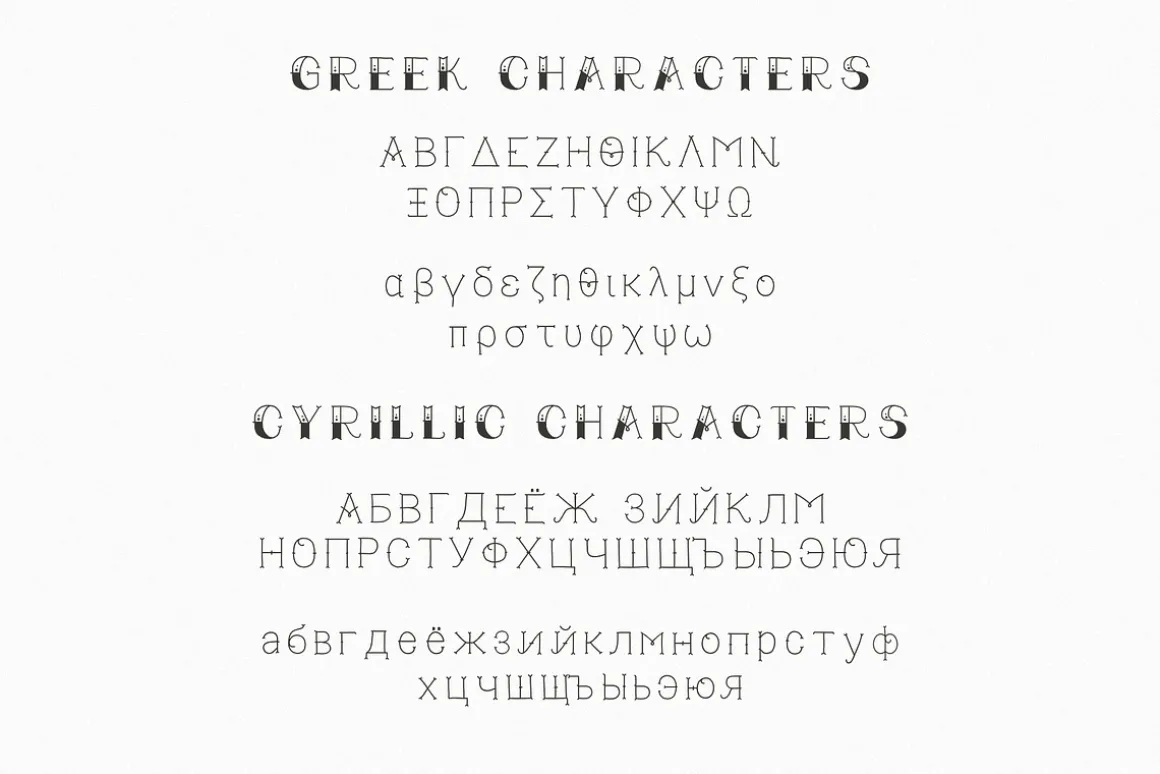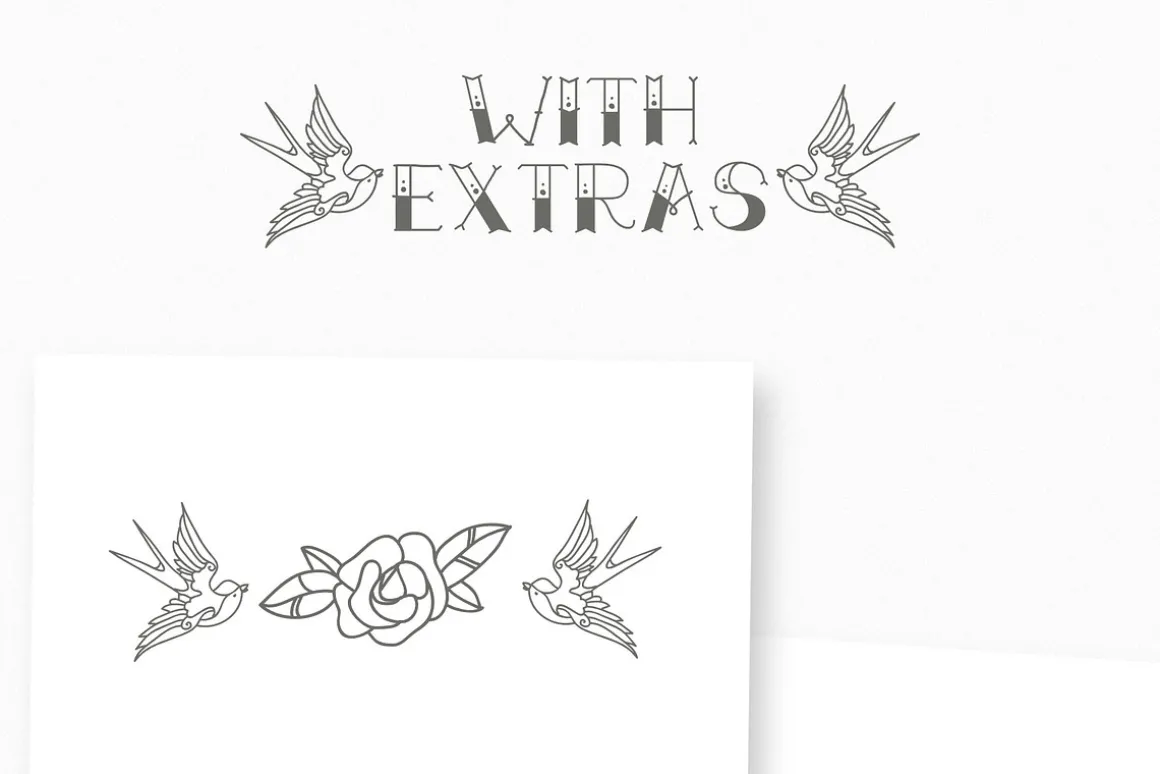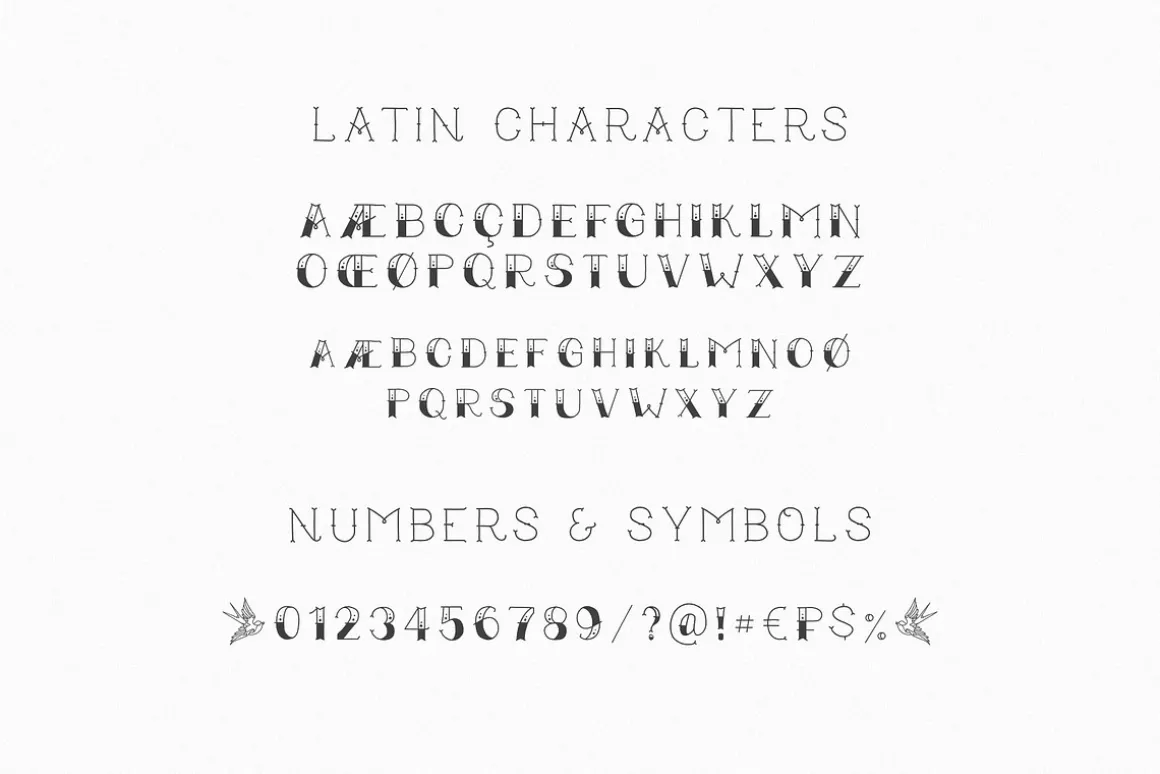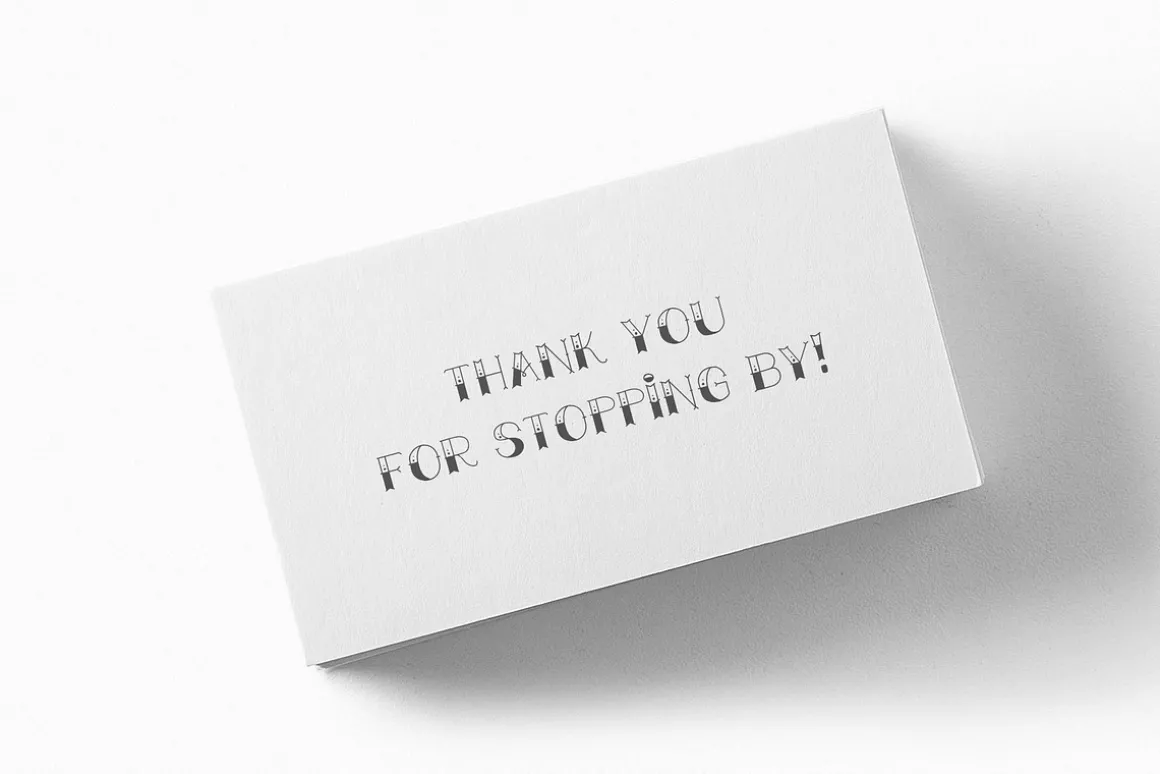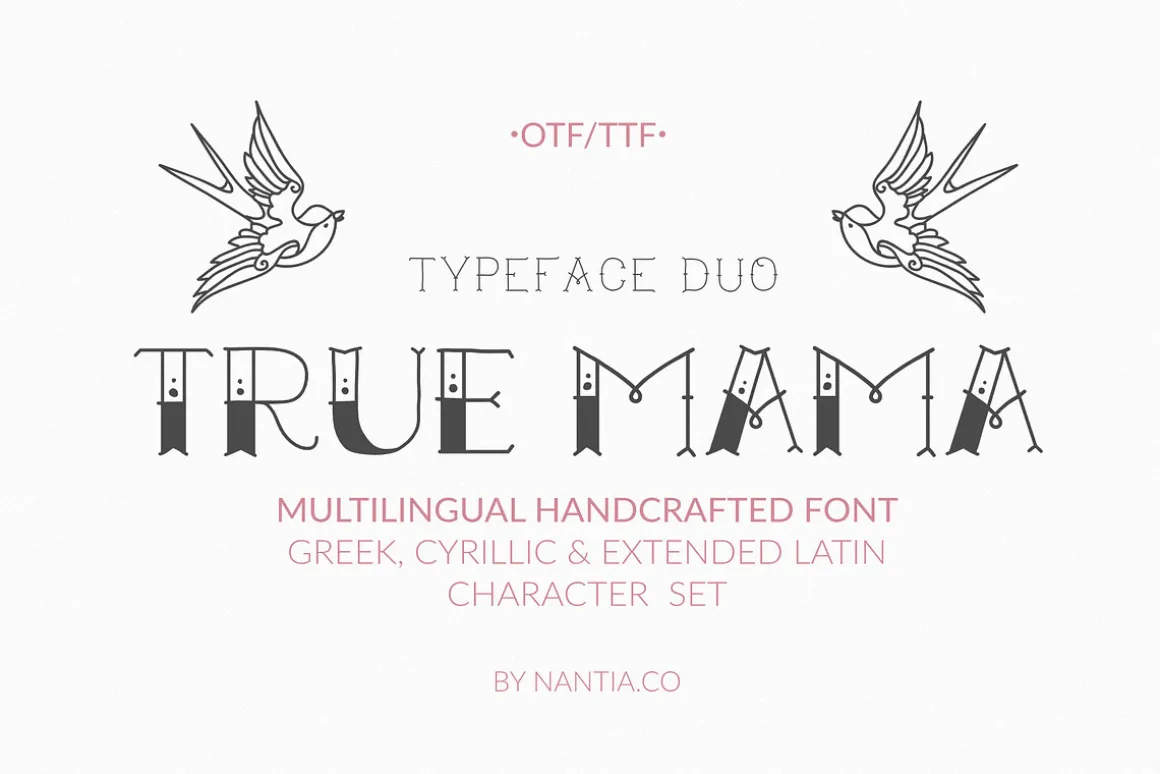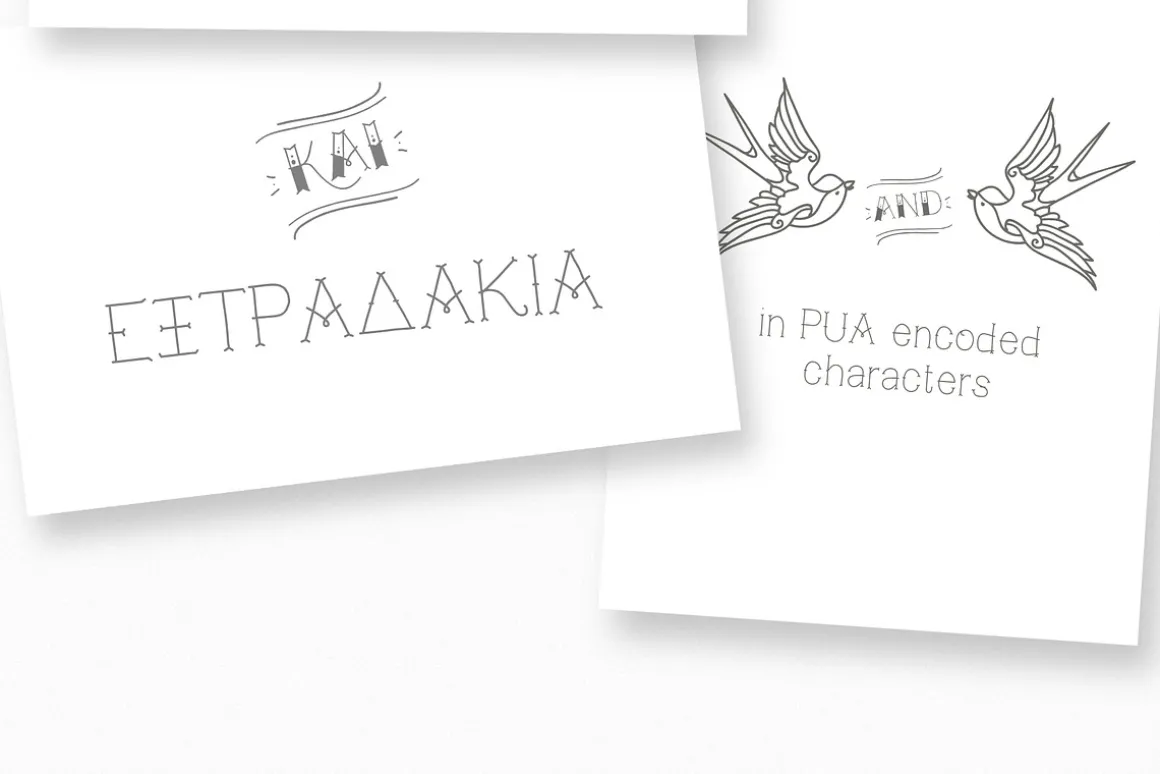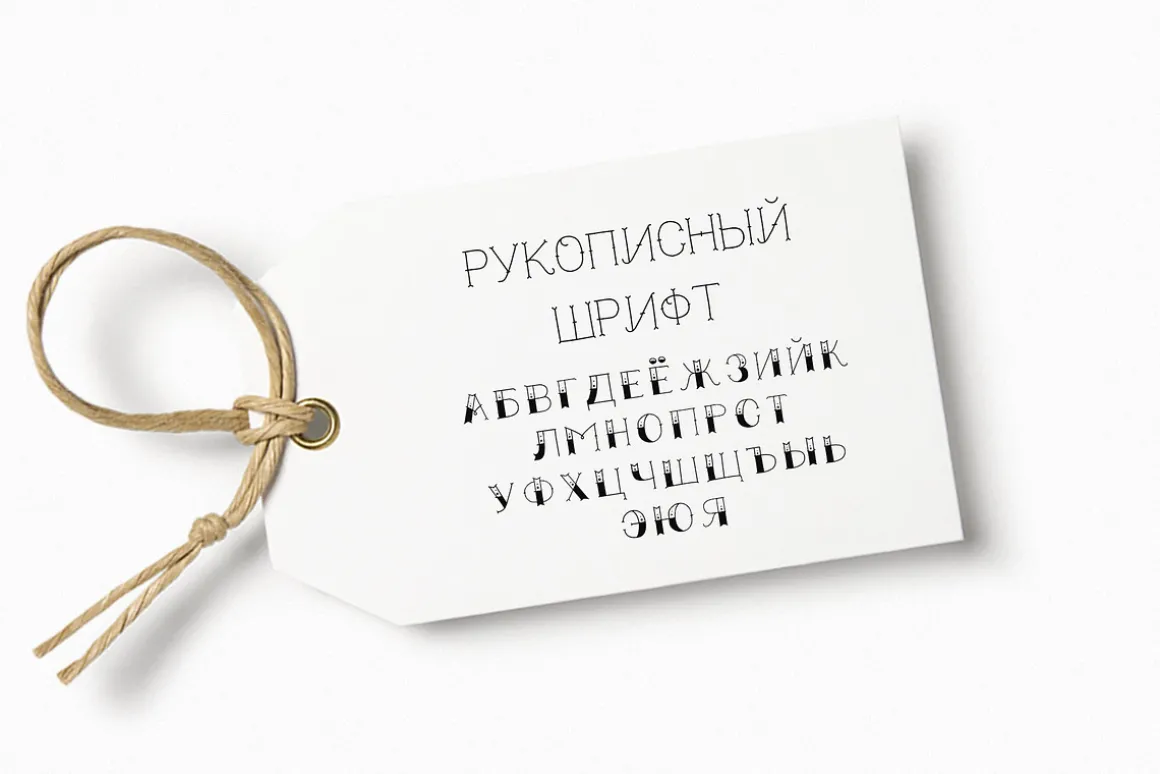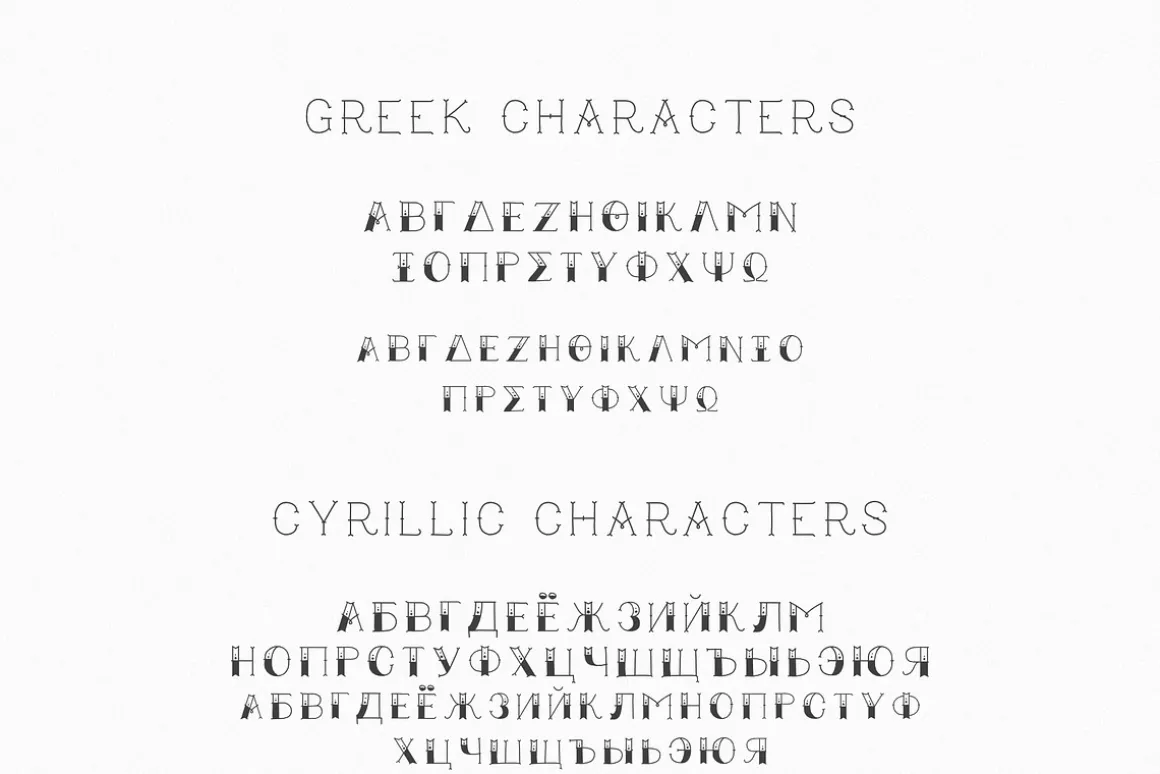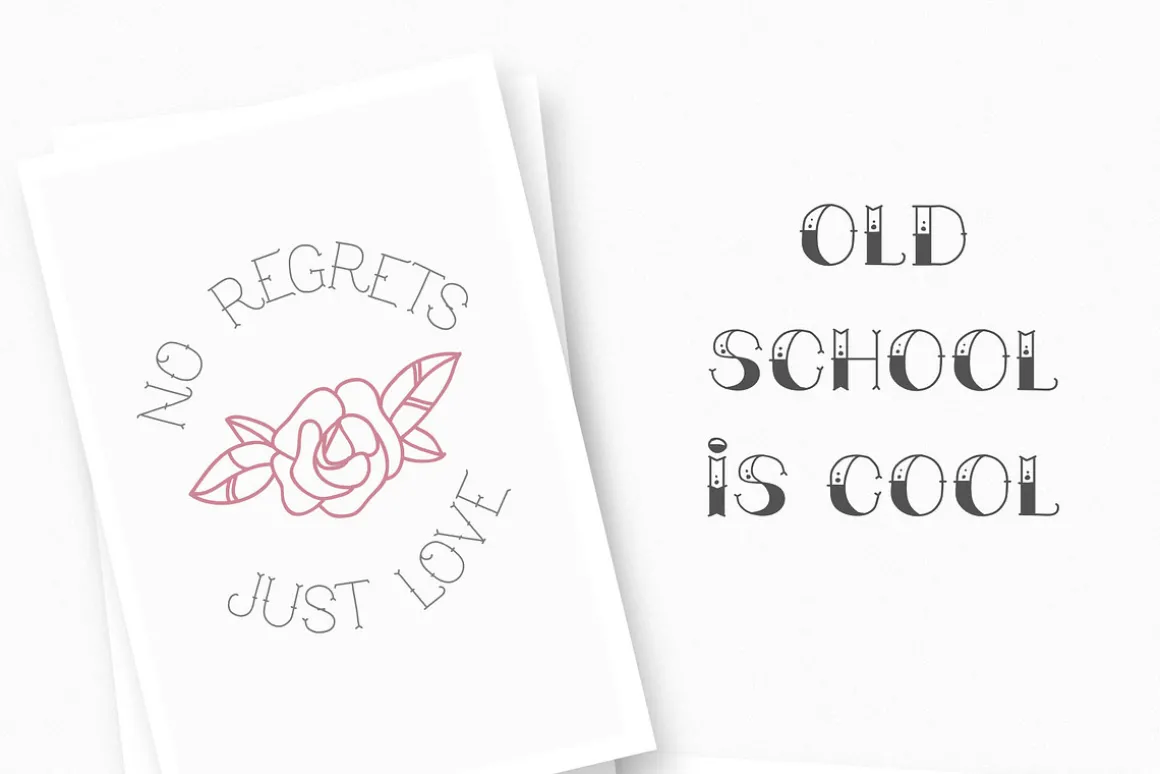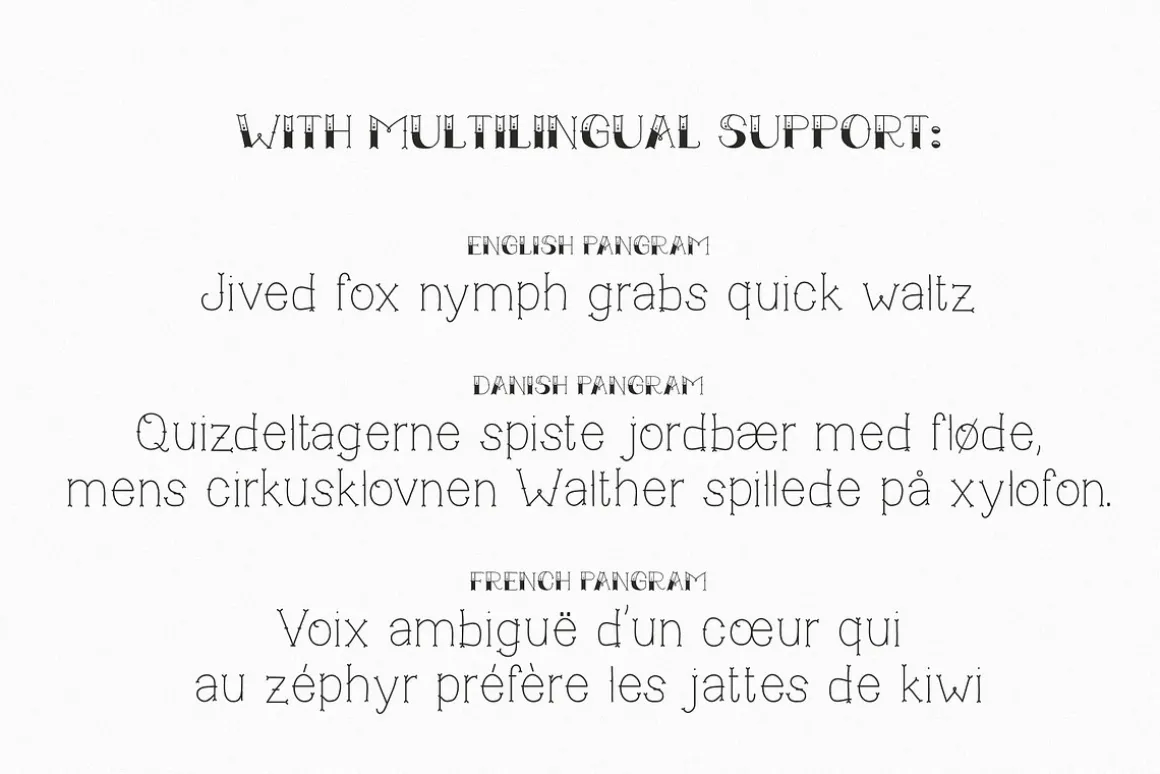
True Mama Cyrillic Greek Typeface Duo your multilingual old-school typeface duo!
With True Mama Cyrillic Greek Typeface Duo, you can recreate old-school lettering tattoo-inspired graphics on the spot! Not only this typeface duo includes one monoline typeface with uppercase and lowercase characters, but also one bold version with only uppercase characters. In fact, the typefaces are so easy to use because they complement each other. Also, this duo is perfect for recreating vintage old-school graphics.
Of course, both typefaces support diacritics and an extended set of Latin, Greek, and Cyrillic character set. In addition, both typefaces have a set of 4 vintage illustrated tattoo extras, that you can find in the PUA section of the font.
True Mama Regular: a completed vintage-looking
- Extended Latin character set,
- Cyrillic character set,
- Greek character set,
- punctuation marks,
- diacritics and
- numbersTrue Mama Bold: an uppercase-only multilingual font with small caps
- Extended Latin character set,
- Cyrillic character set,
- Greek character set,
- punctuation marks,
- diacritics and
- numbers
Extras: 3 premade lettering and 2 monoline old-school tattoos that you can find on PUA section of the font.